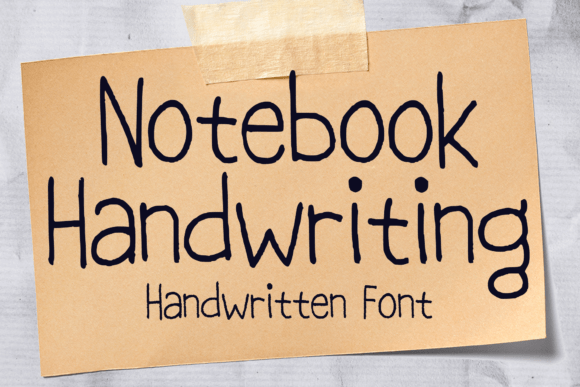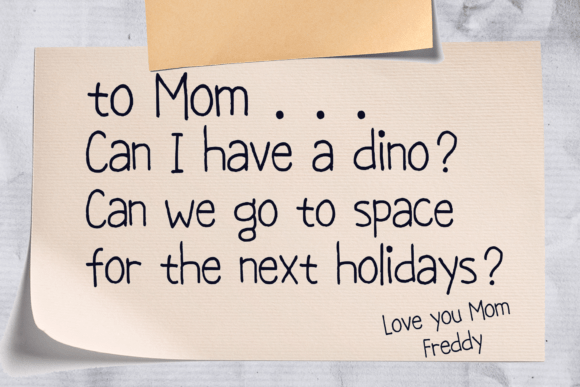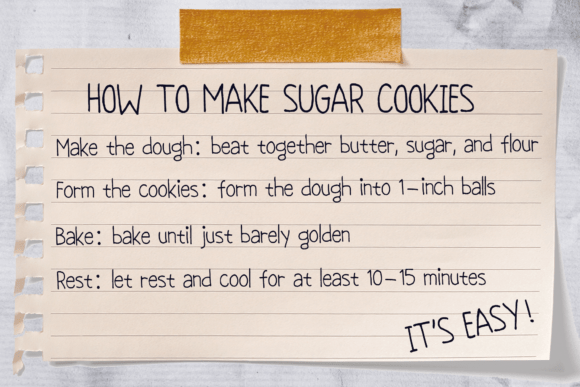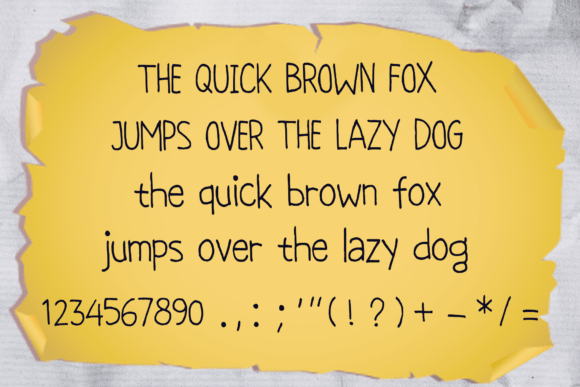
Notebook Handwriting Font
About the Notebook Handwriting Font
We are excited to introduce Notebook Handwriting Font, a must-have typeface for any serious designer. Notebook Handwriting is a versatile daily font and suitable for everyday use. It will elevate a wide range of design projects to the highest level. You can use this font for many design ideas such as stickers, t-shirt designs, amazing logo designs, magazine or book covers, comics, cartoon drawings, and many more. This font will add a super cool touch to your designs!
Notebook Handwriting excels in applications requiring a friendly, approachable feel. It’s ideal for headlines, short text blocks on packaging, and social media graphics. Its informal nature makes it perfect for branding projects targeting a younger demographic or emphasizing a casual, handcrafted aesthetic. Avoid using it for body text or lengthy paragraphs, as its handwritten style can hinder readability.
For optimal visual balance, pair Notebook Handwriting with a clean sans-serif like Open Sans for body copy or a geometric sans-serif like Futura for a more modern contrast. A classic serif like Garamond can also work well, providing a sophisticated counterpoint to the font’s casual energy. Avoid pairing it with overly decorative or ornate fonts, which could create visual clutter.
The font’s core personality is informal and friendly, conveying a sense of warmth and approachability. It works best for brands emphasizing creativity, playfulness, and connection.
Notebook Handwriting Font Usage Examples
Notebook Handwriting Font Example